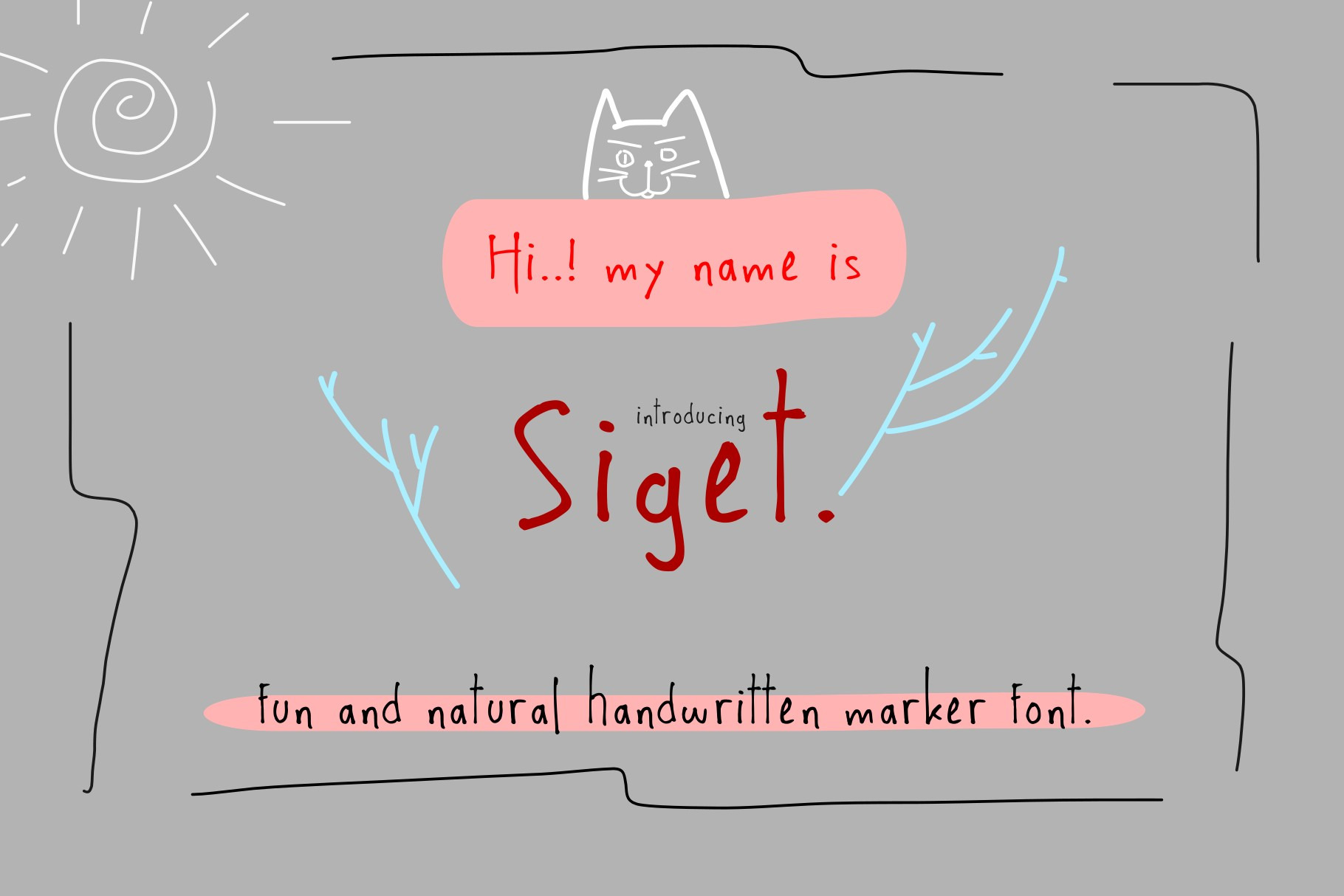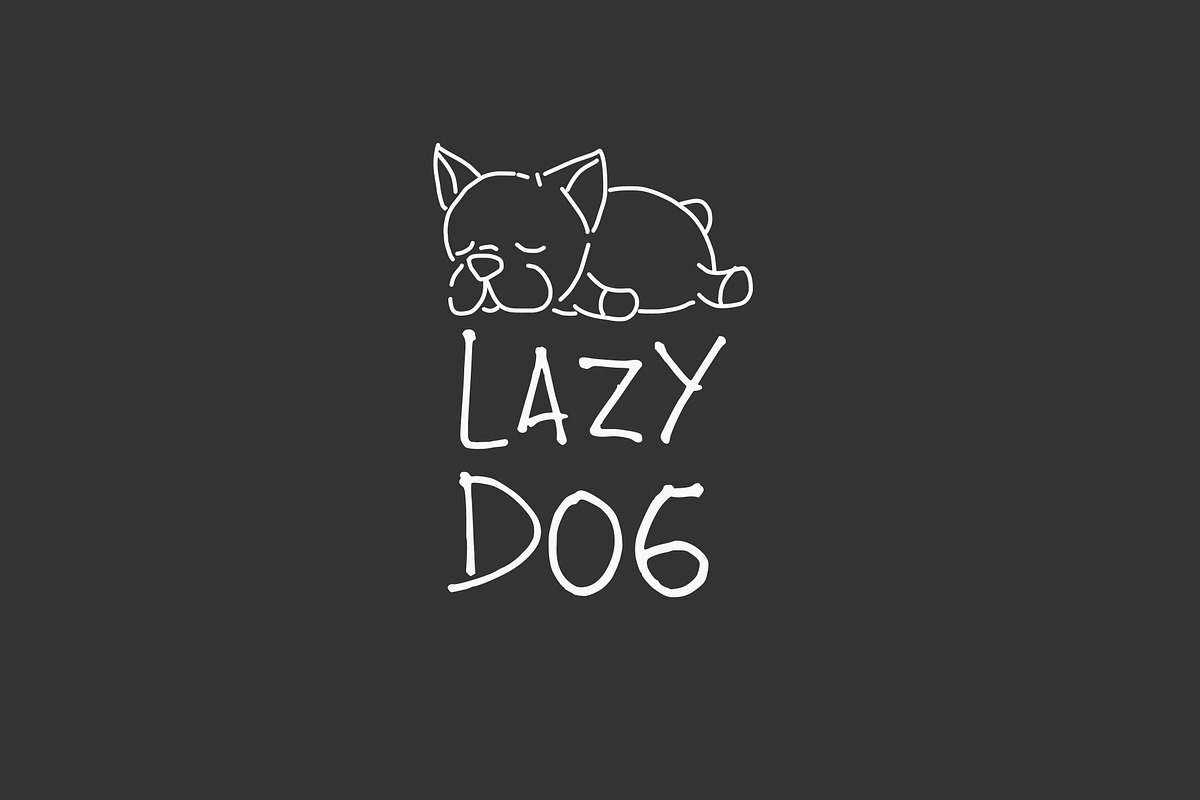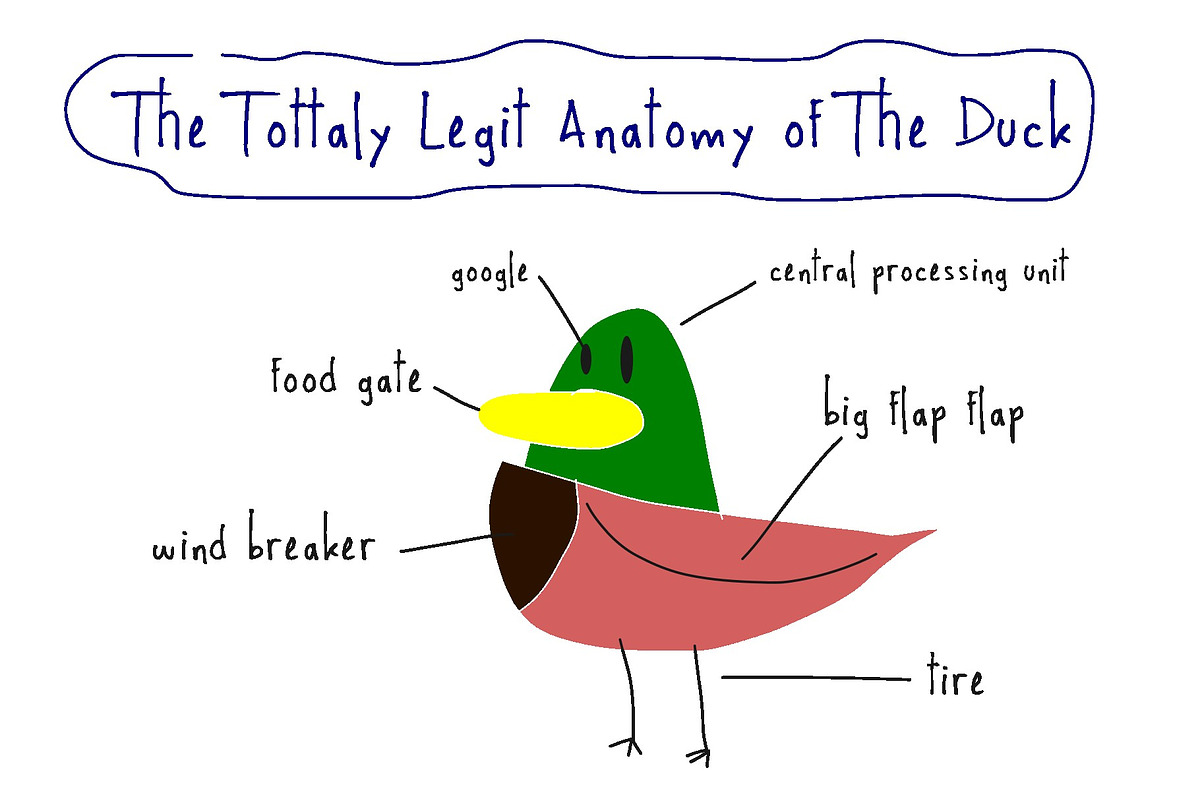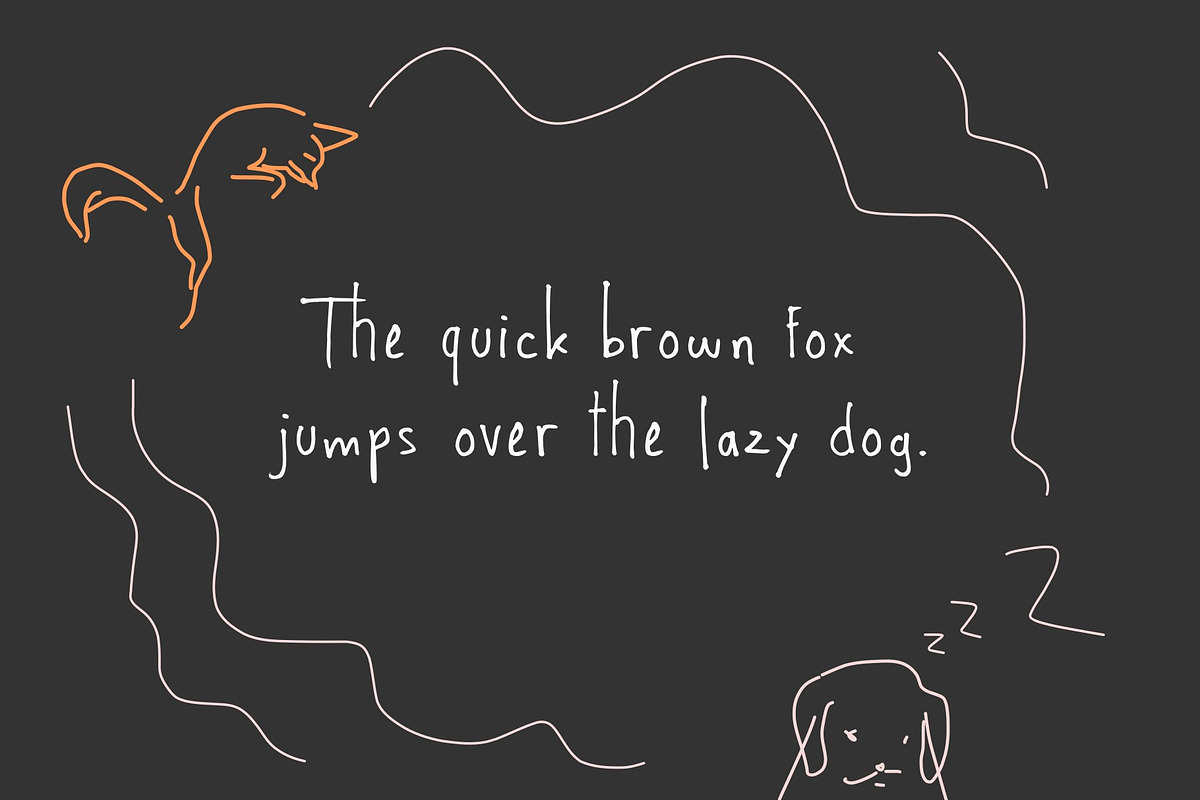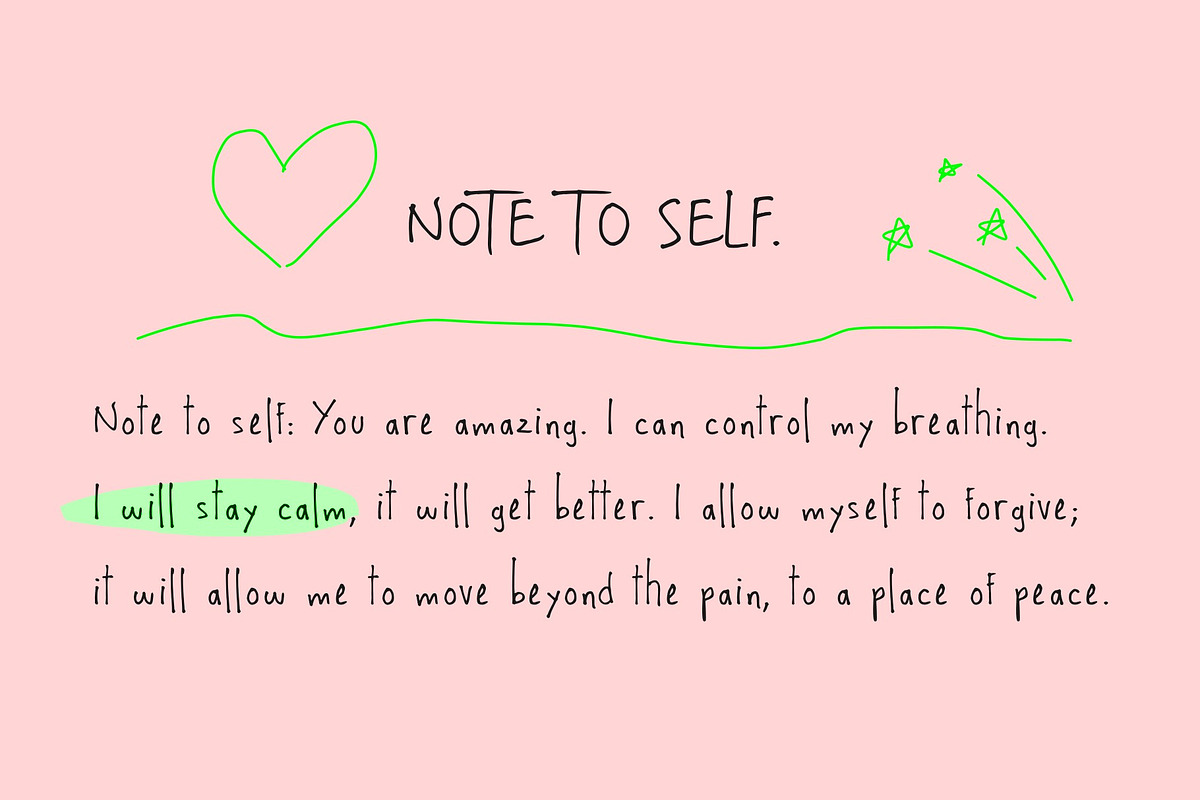
Siget - Handwritten Marker Font
Introducing a handwritten masterpiece made exclusively with marker strokes, behold the enticing charm of a crafted, natural and manually written font. Bearing the inherent whimsy of organic handwriting, this marker font unfolds an authentic texture that adds a personal and intimate touch to your designs. Capture the essence of handcrafted artistry with this incredible font, meticulously shaped using a marker by a seasoned designer. Each stroke reveals the raw beauty of manual creation, promising to make your communication stand out with a genuine, handwritten feel.